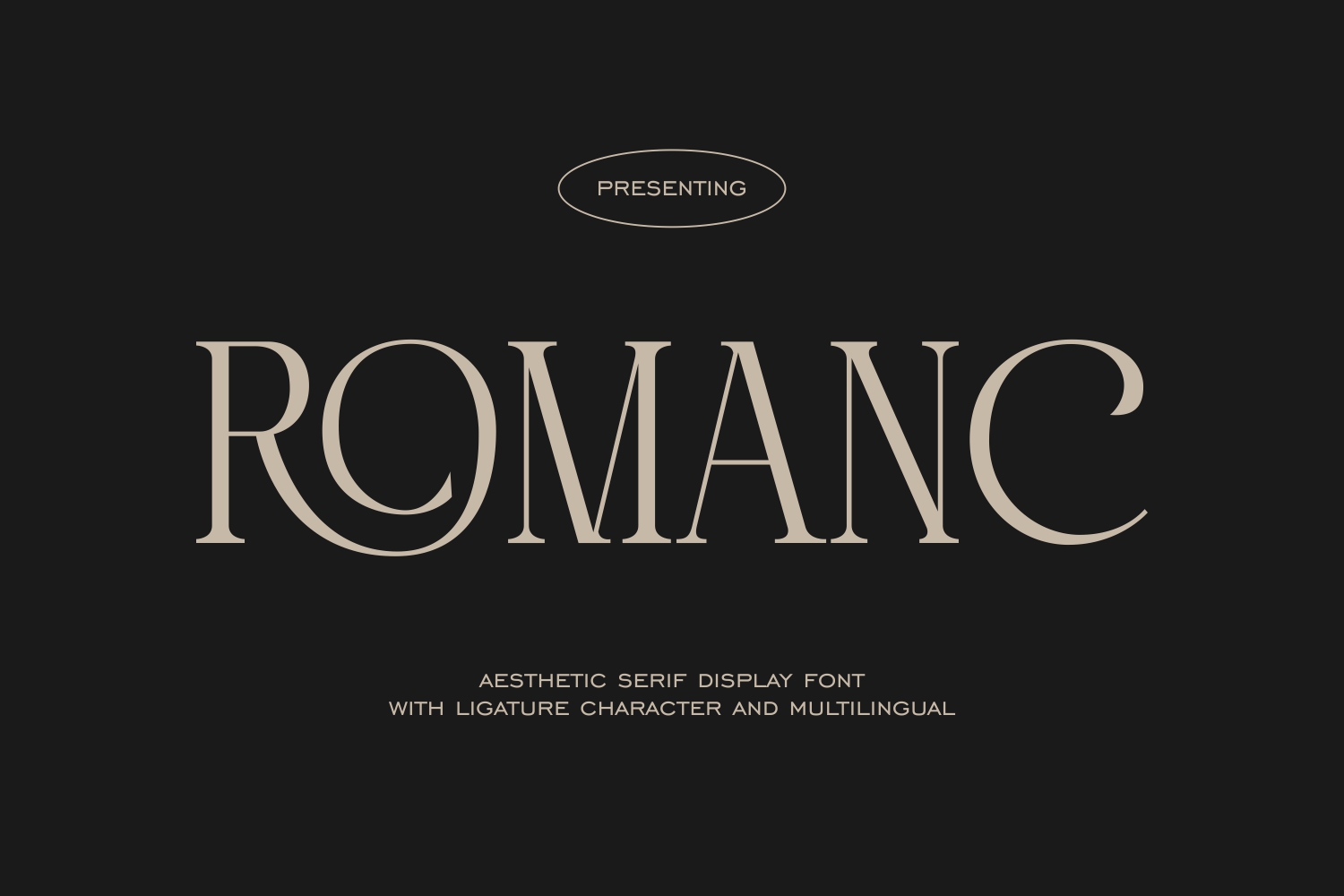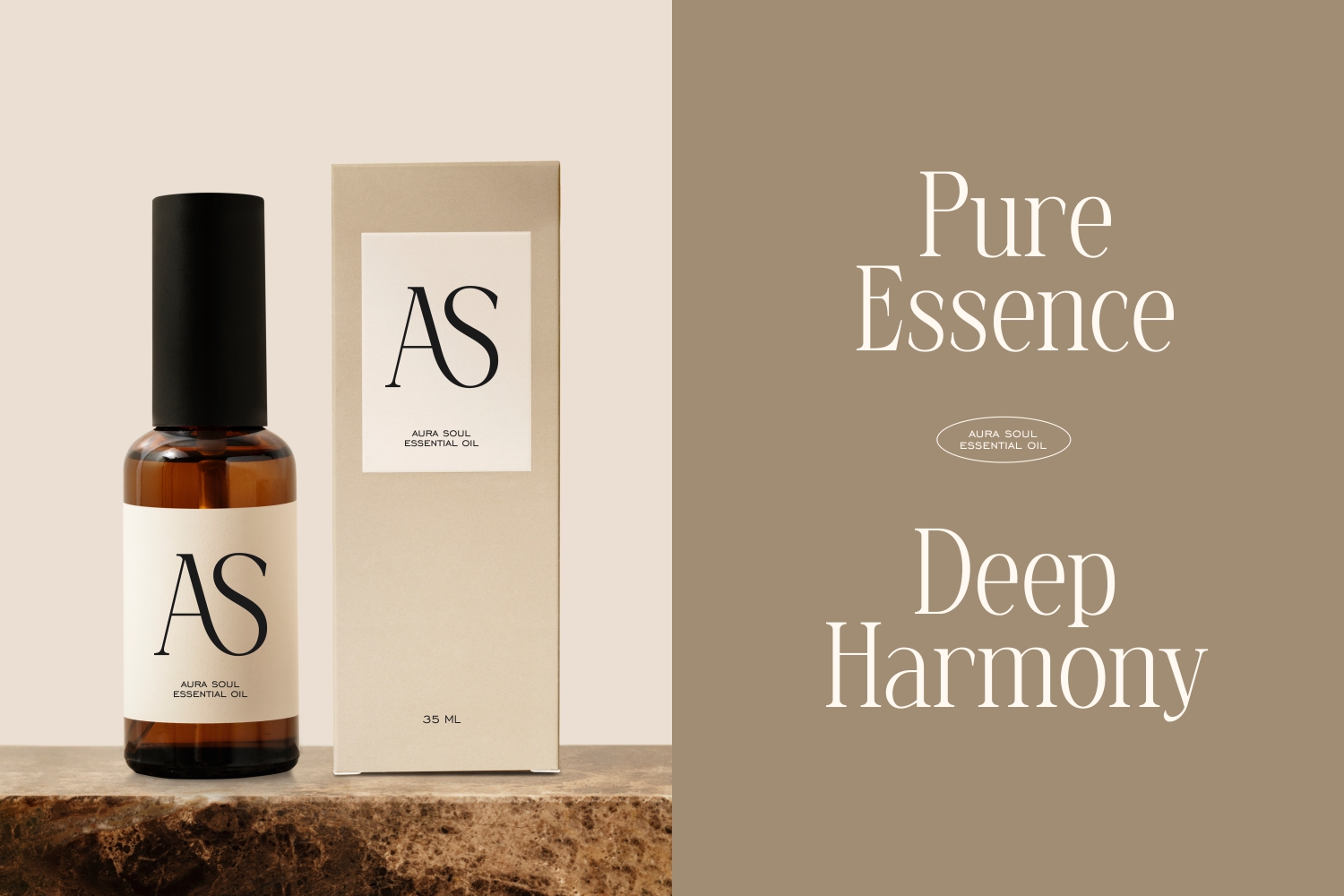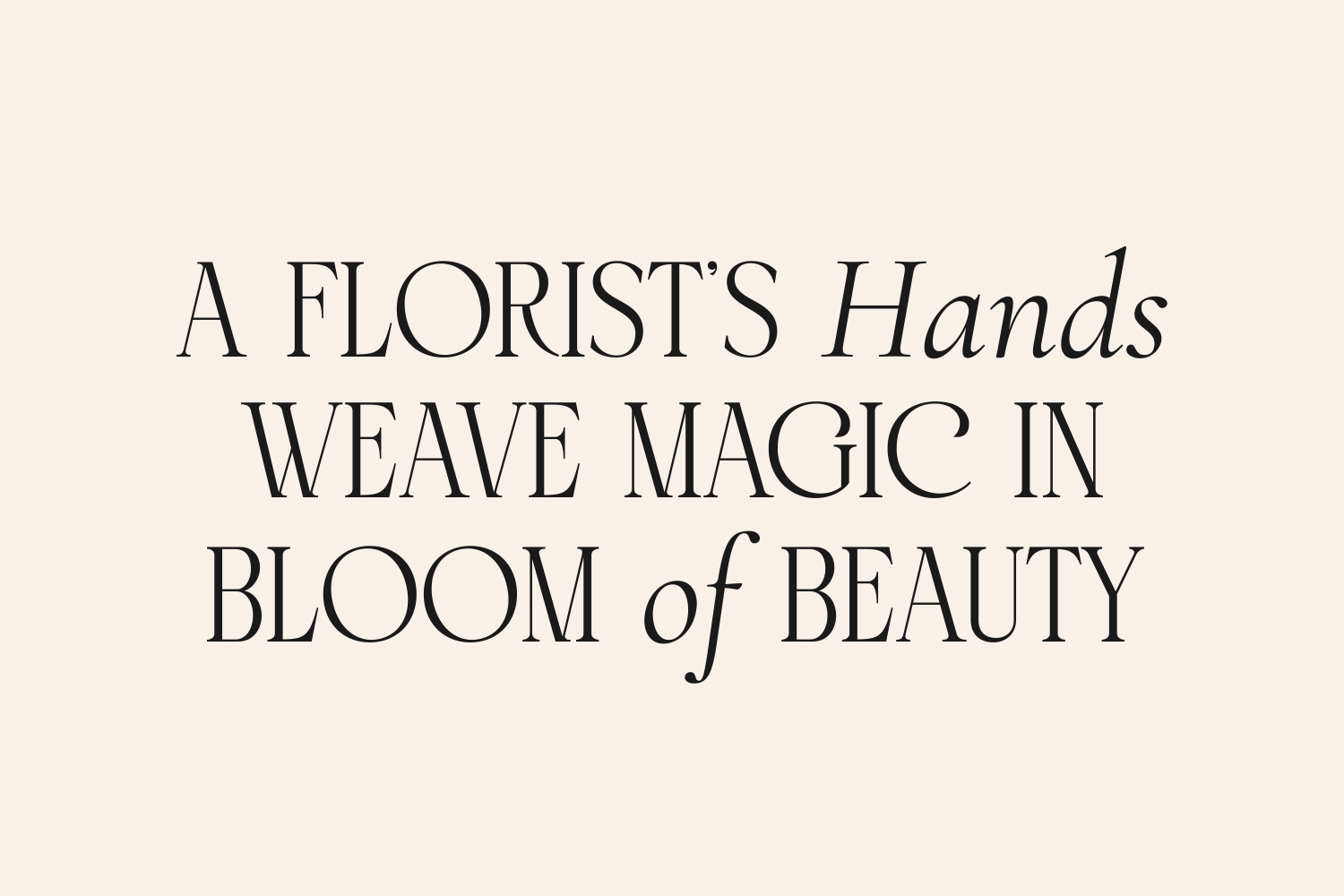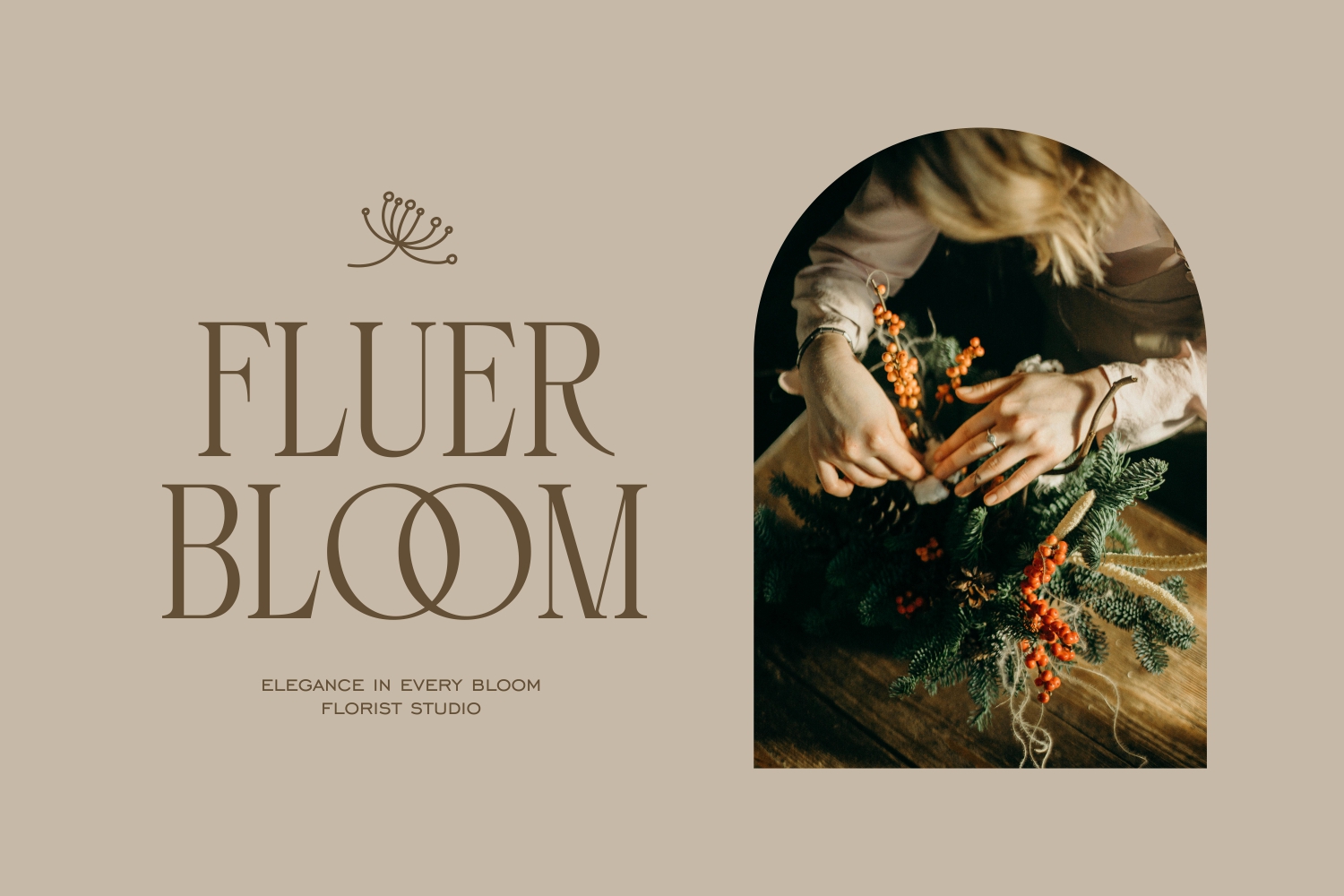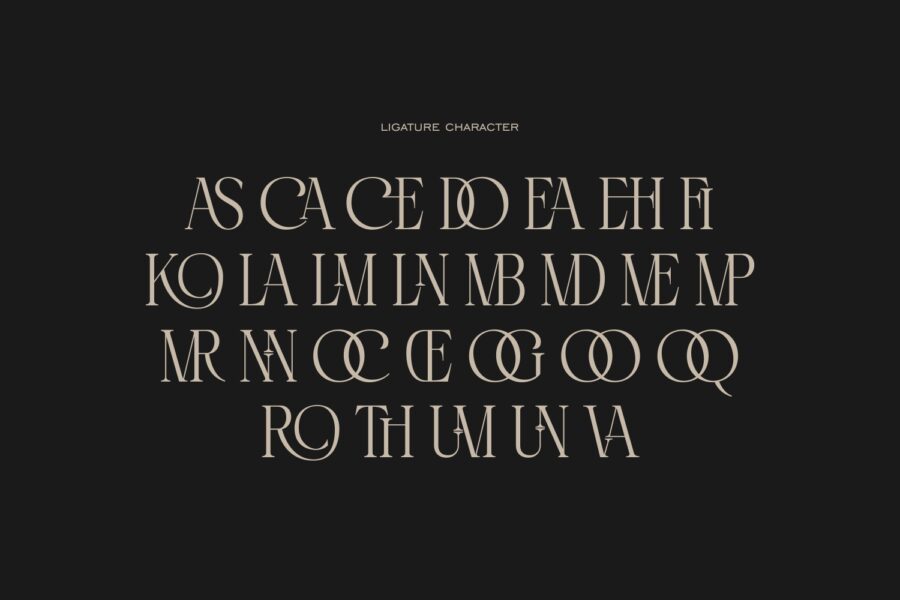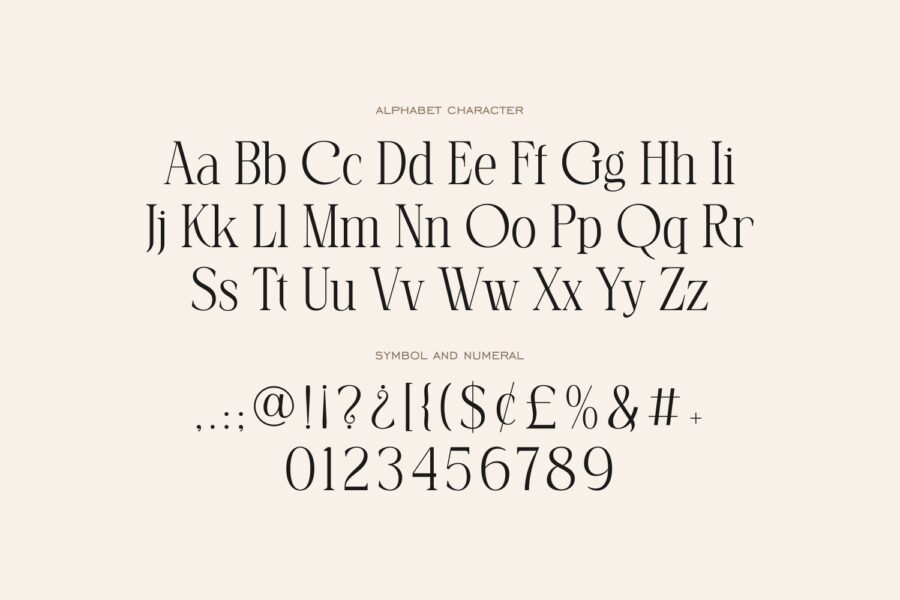
Romanc
Glyphs for Romanc
Romanc is an aesthetic serif display font that combines timeless elegance with a modern artistic twist. With its graceful curves, refined strokes, and sophisticated ligatures, this typeface evokes a sense of high-end artistry. Its design strikes the perfect balance between classic sophistication and contemporary aesthetics, making it an excellent choice for projects that demand a refined and distinctive look. The font is versatile enough to elevate branding, packaging, invitations, and editorial layouts with a luxurious touch.
Beyond its visual charm, Romanc includes ligature characters and multilingual support, offering designers flexibility and creative freedom in their projects. Whether used for minimalist product labels, elegant logos, or sophisticated promotional campaigns, this font ensures a polished and stylish presence. Romanc is a statement typeface that not only enhances readability but also brings character and artistry to every design.